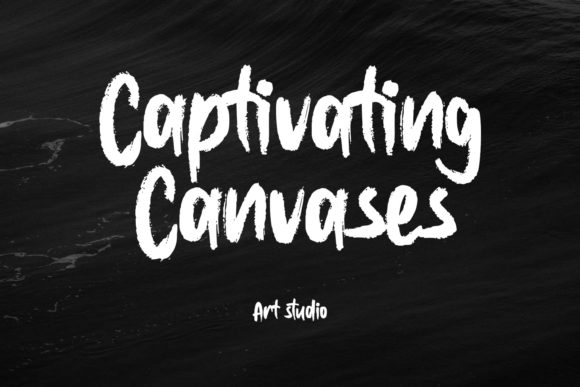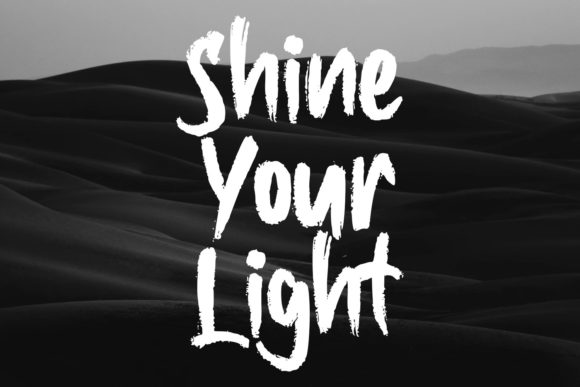
Rust Crowth Font
db-ku.com - Script & Handwritten -- Rust Crowth is a handwritten brush font featuring regular rough brush strokes, fun characters, ligatures, and alternates. This font is good for logo design, social media, movie titles, book titles, short text, or long text. It is also great for your secondary text, together with a sans or serif.